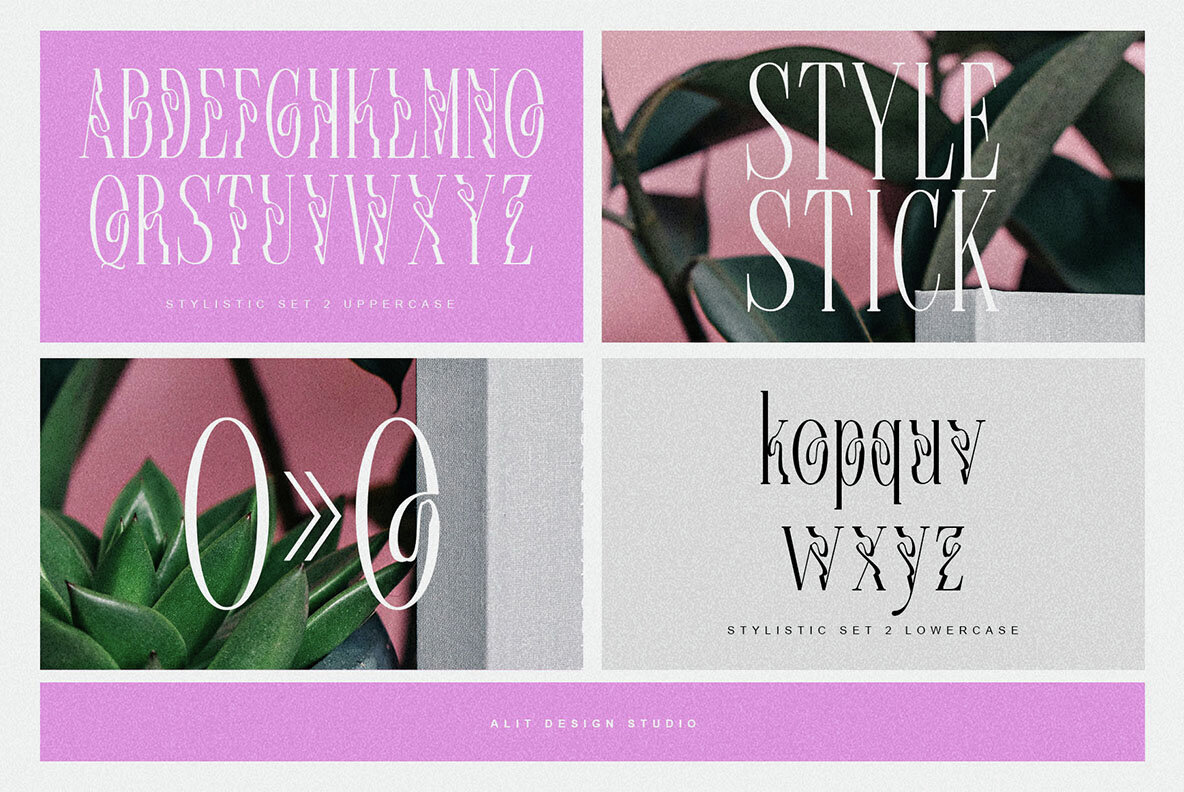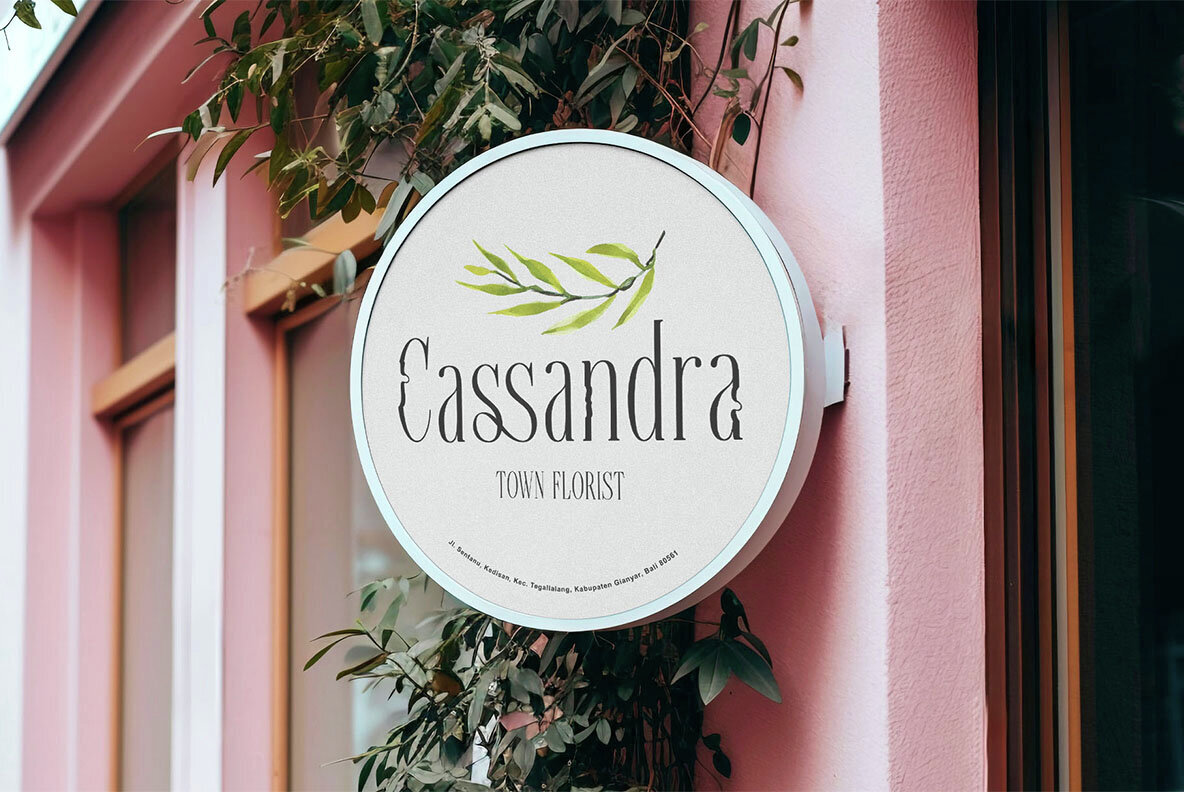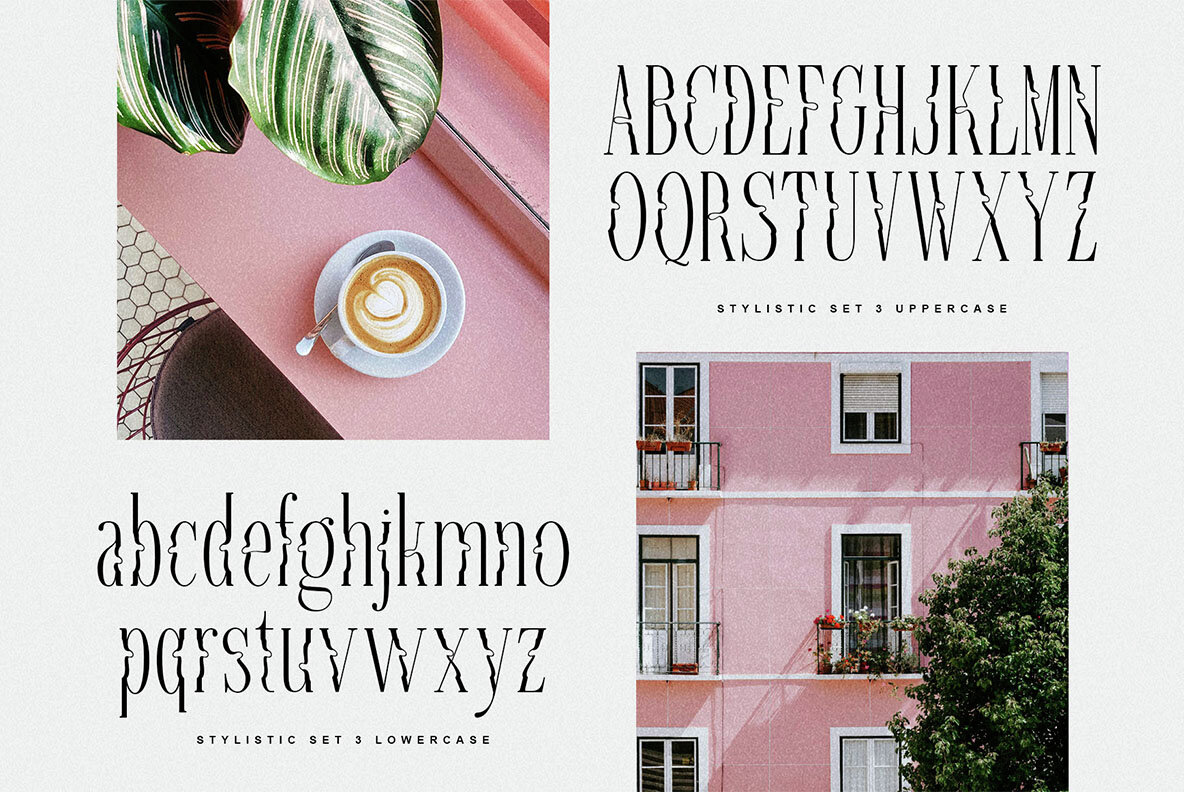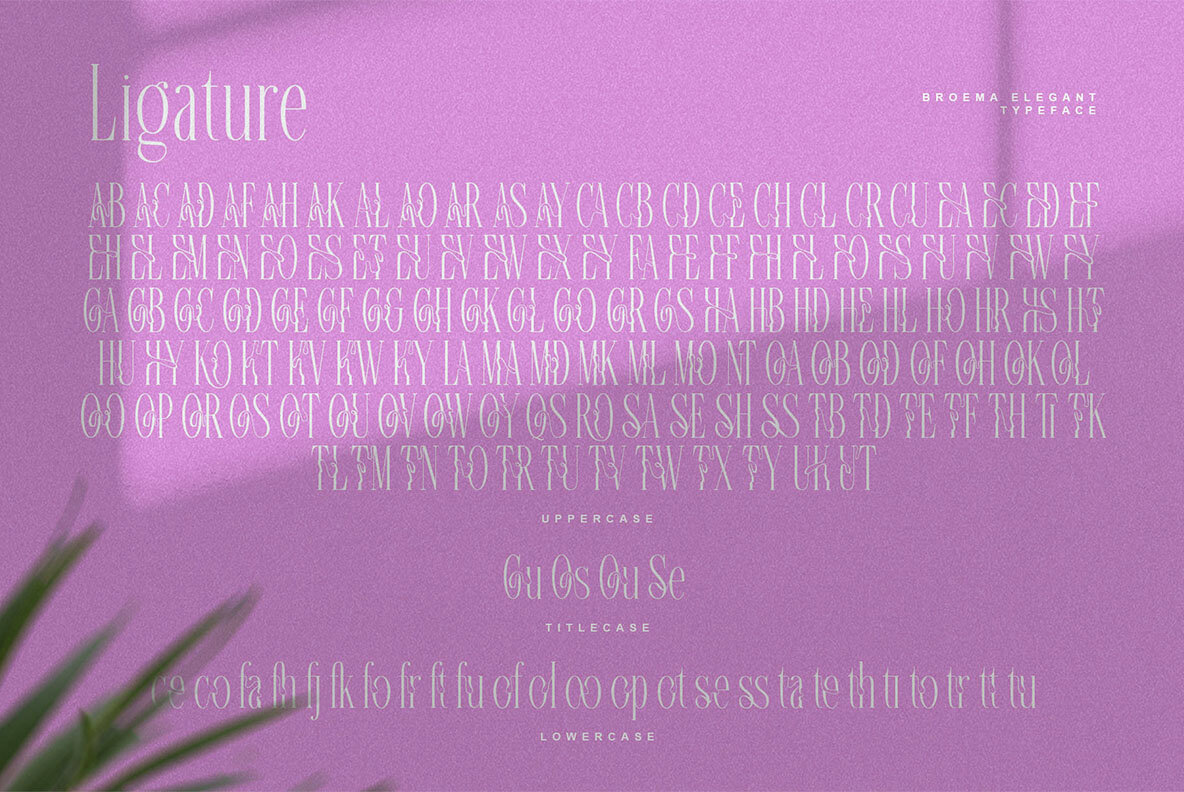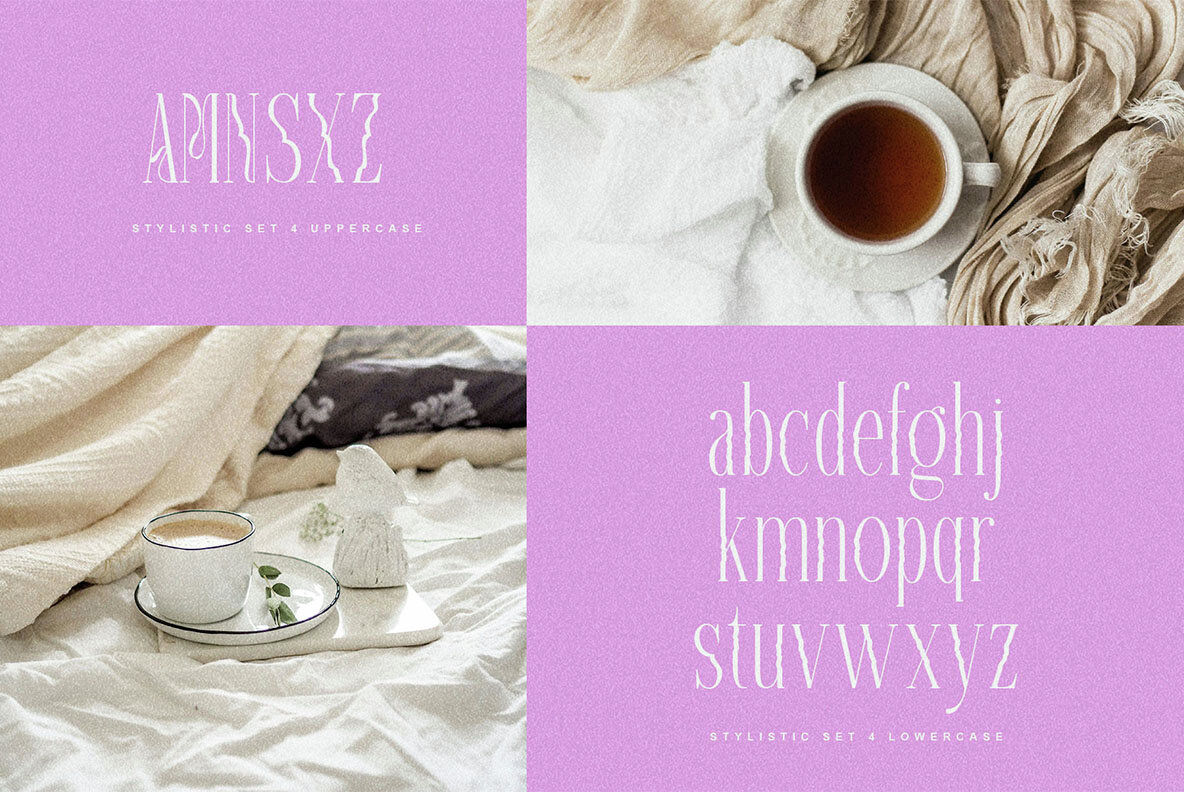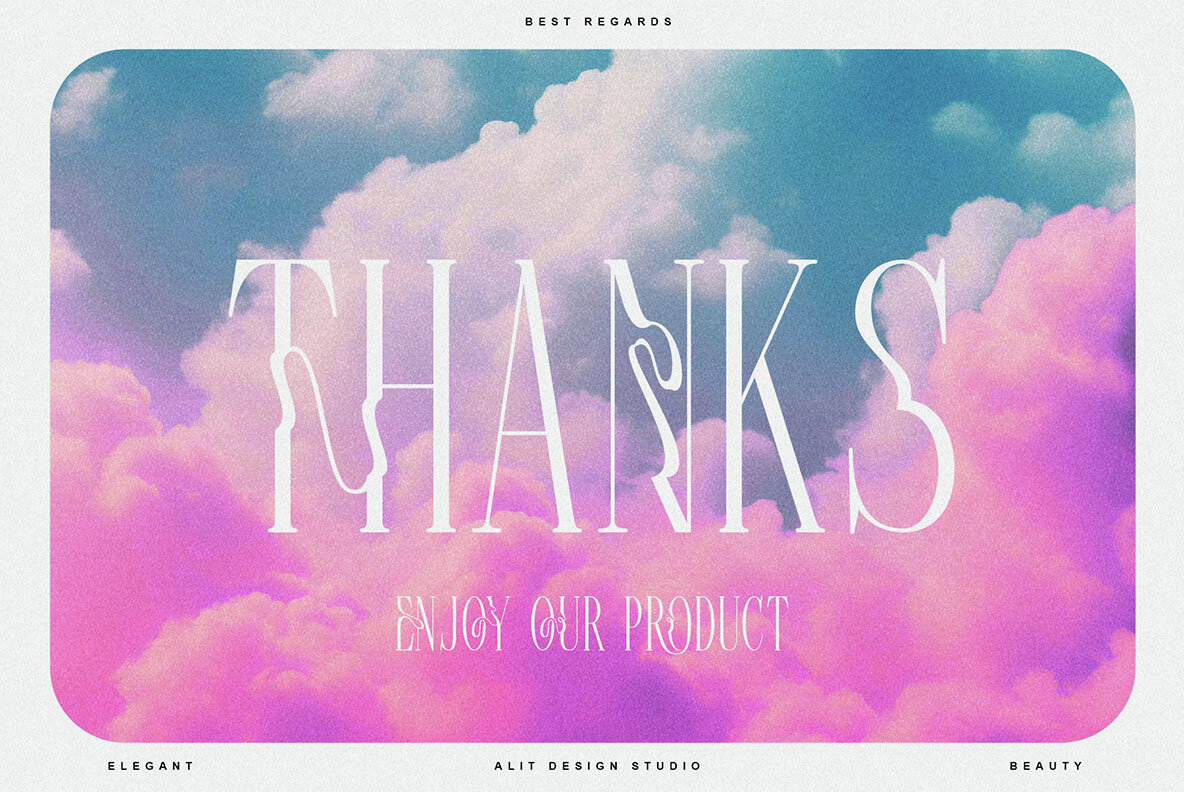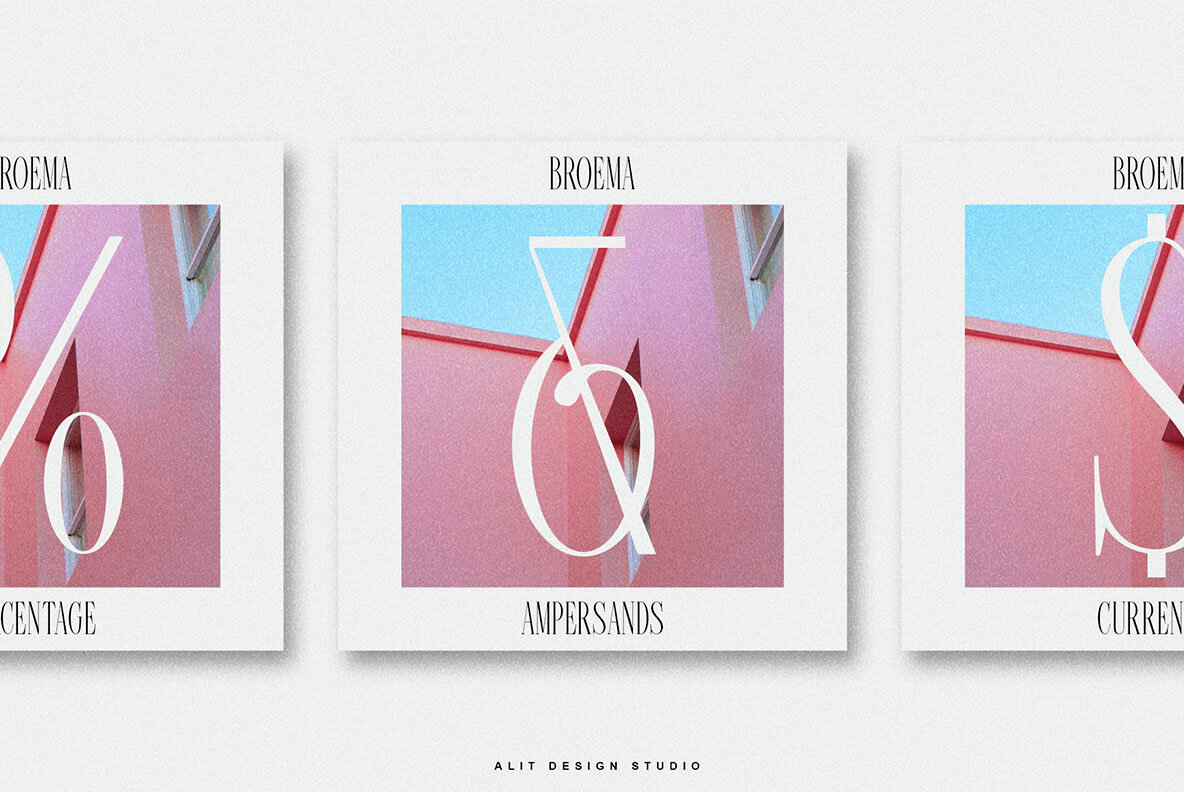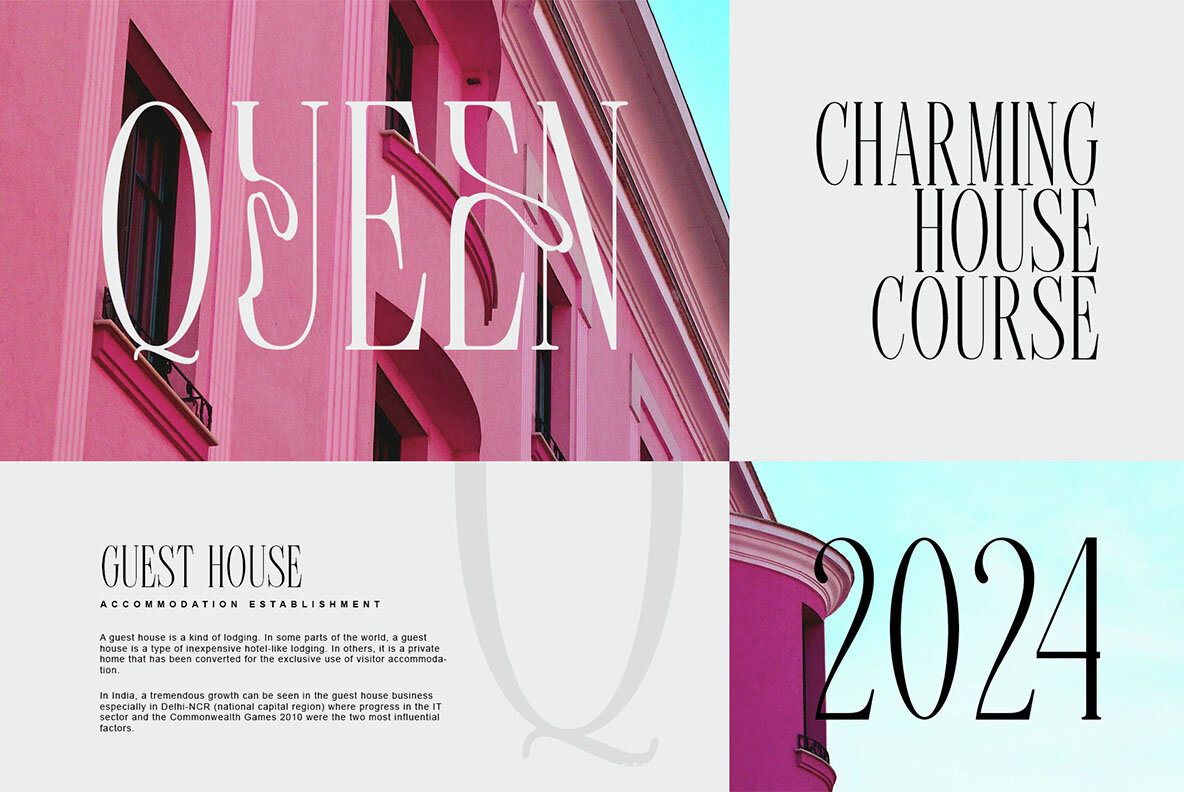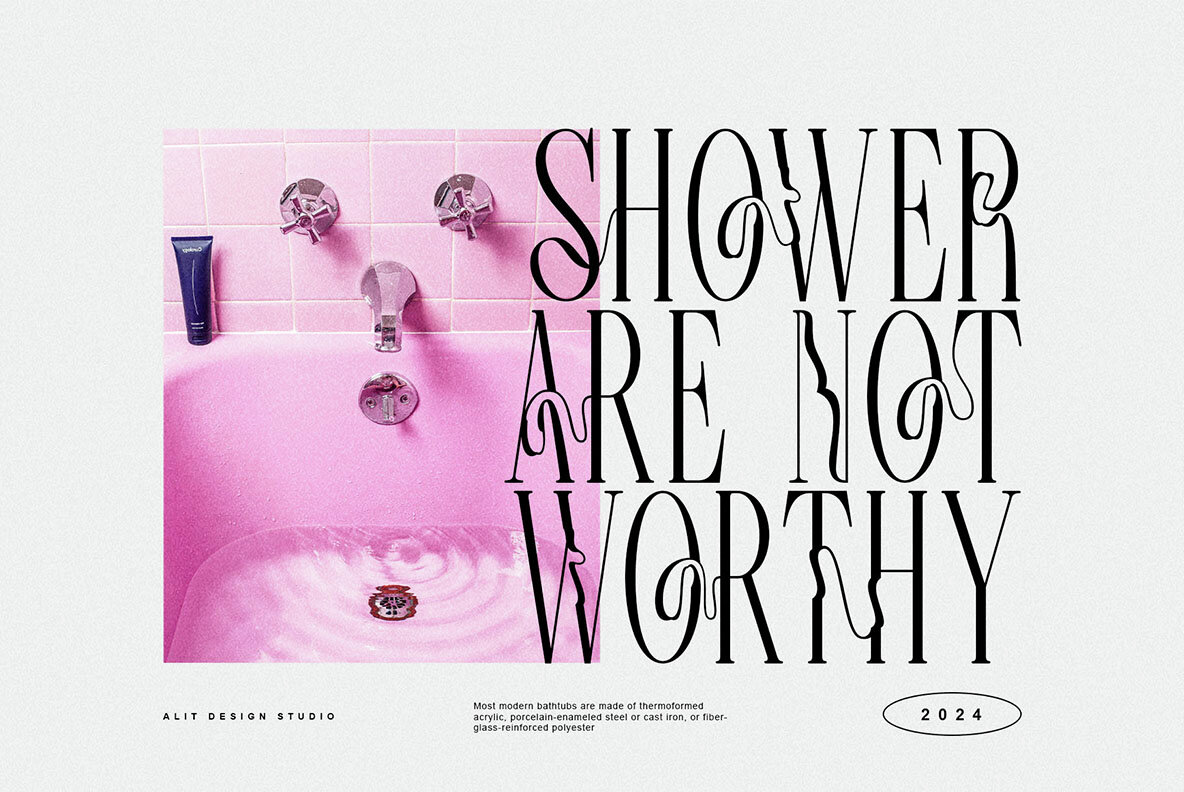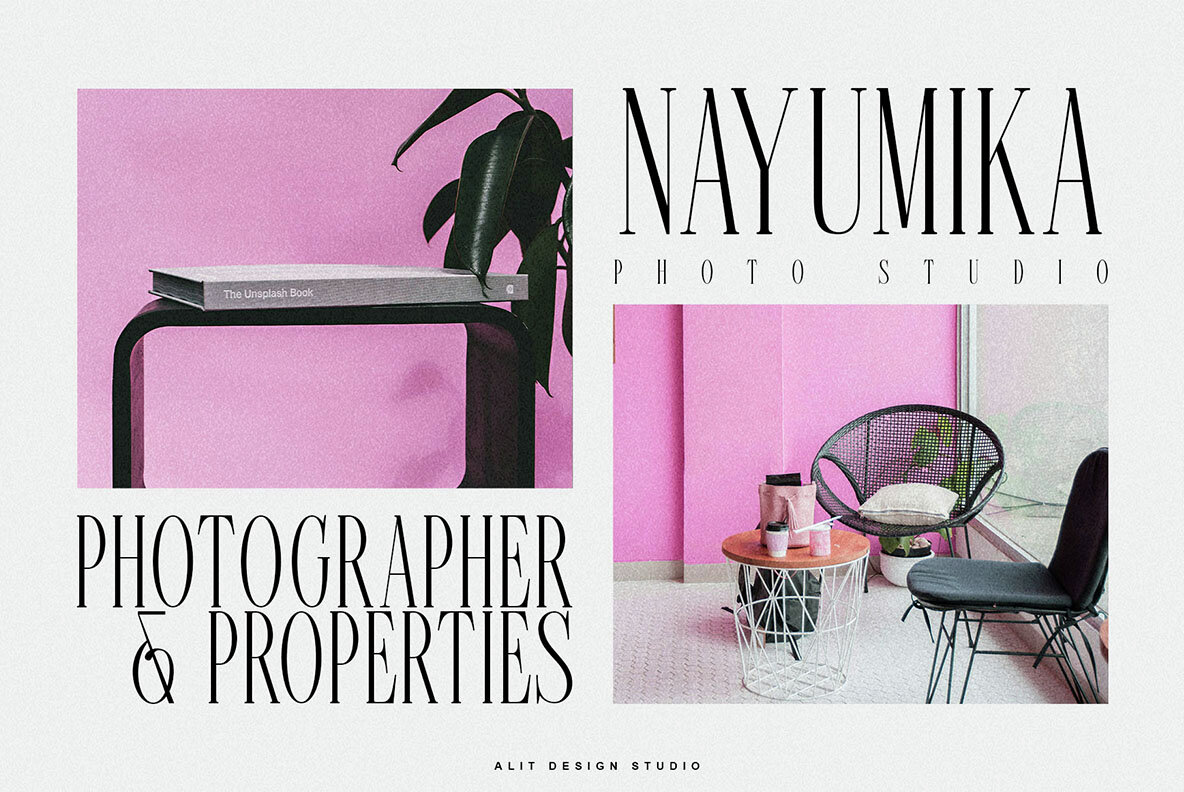
Broema Font
Broema Regular
Introducing Broema Typeface: The Epitome of Modern Elegance Discover the allure of contemporary design with Broema Typeface, a modern serif that redefines sophistication. Crafted with precision and artistry, Broema stands out with its distinctive letterforms that gracefully sway like ribbons, infusing each character with a sense of fluid motion and elegance. Key Features: